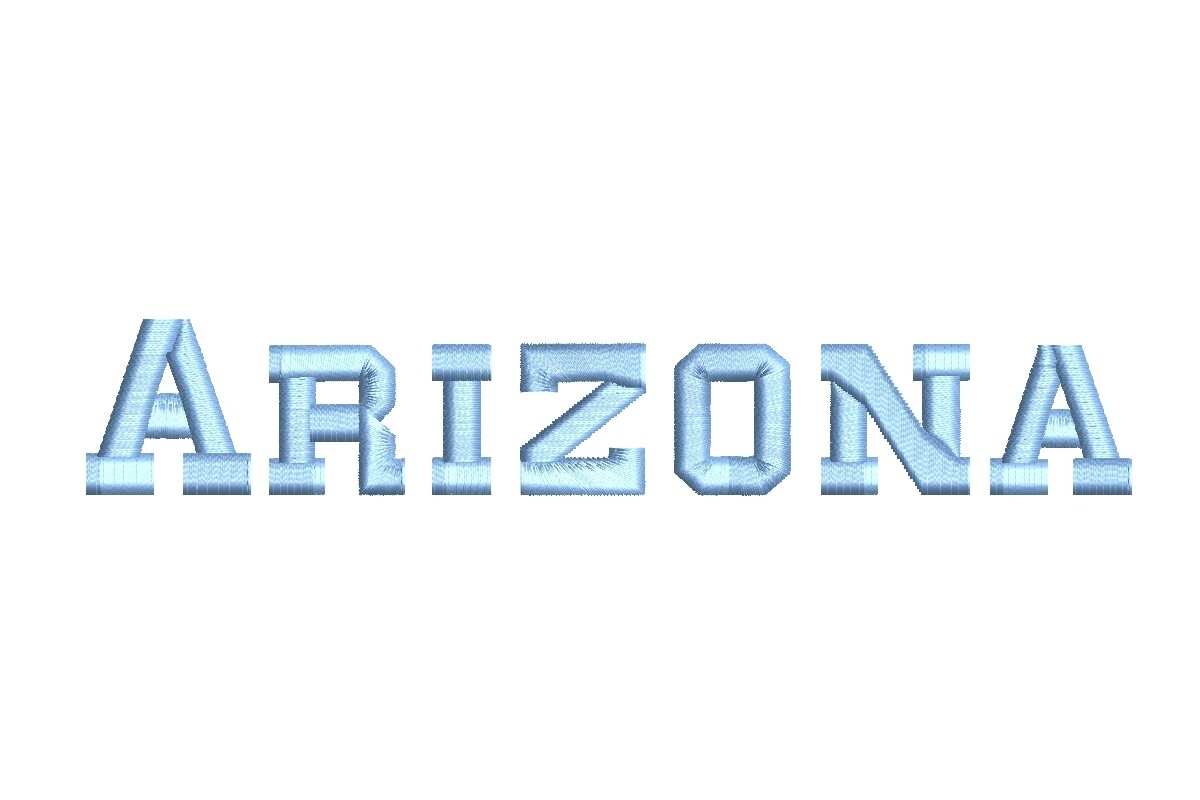
Introducing the Arizona ESA Font – your gateway to premium embroidery design. Meticulously crafted for compatibility with Wilcom Studio e4.5.6 and Hatch 3 versions and beyond, this font enhances your creative possibilities. Elevate your embroidery projects with its elegant and versatile design. Whether you're a novice or an expert, Arizona ESA simplifies your digitizing and stitching process. Seamless integration with Wilcom Studio and Hatch makes it a breeze. Achieve remarkable results and unlock your embroidery potential with the Arizona ESA Font. Elevate your designs to new heights. Order now to experience the perfect blend of style and functionality in one exceptional font.